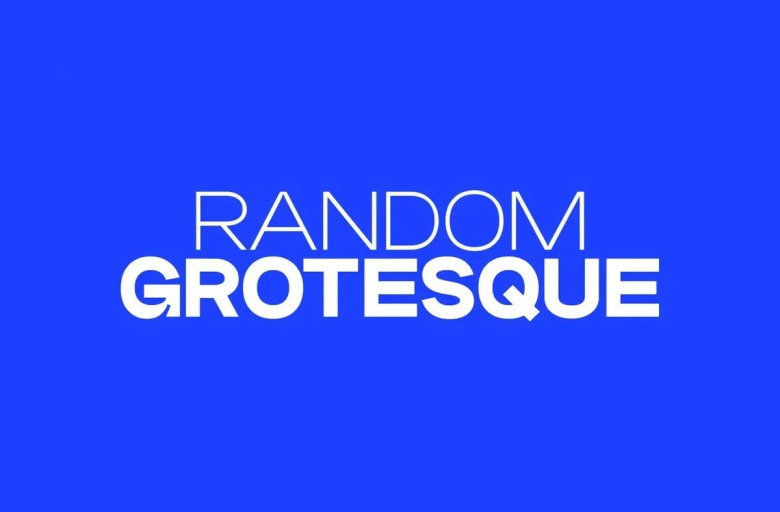
Random Grotesque Font
Random Grotesque is a condensed sans serif font family with good set of paraphs and it has all the neo-grotesque feel of energy. It was originally designed to achieve the typography of Helvetica, but not without its own character. … most obvious is the inktrap. Use “Random Grotesque” on posters, logos, headings and titles or subtitles in any text block sized.
The family, available in 3 widths (the very narrow “Slim”, the moderately intense “Standard”, and a comfortable “Spacious”) offer 36 styles: Light to Black, Roman or Italic. For personal or commercial use, you have 12 standard-width fonts to be free. The set of fonts consists of 737 individual fonts with over 101 distinct languages and scripts supported across all families.
Random Grotesque Sans Serif Font Family